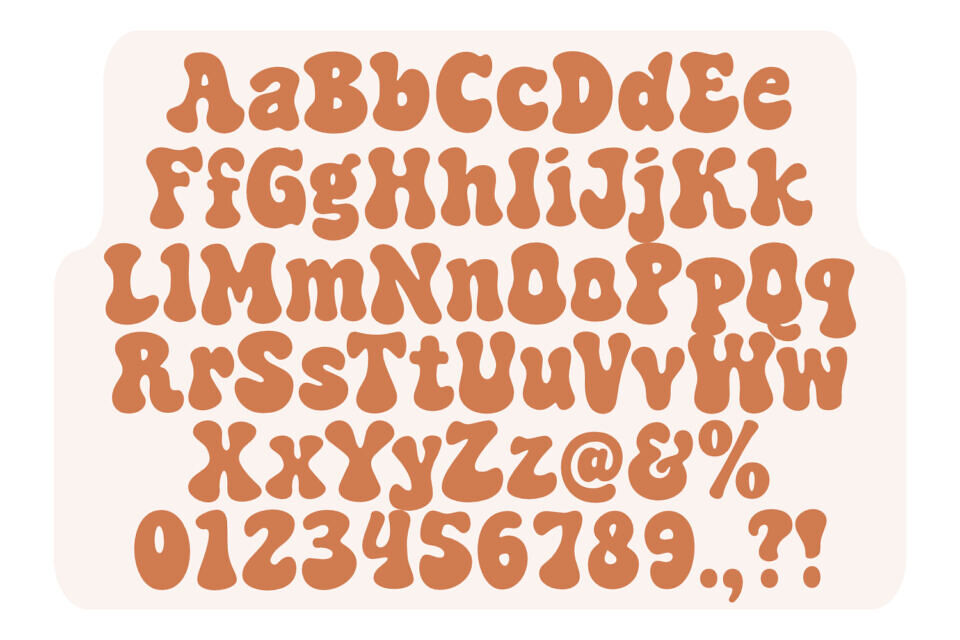
Introducing Super Maples, a delightfully groovy and bold font with a distinct retro charm. Inspired by 70s aesthetics, this typeface features chunky, rounded, and bubbly letterforms that create a playful and friendly vibe.
Its soft, almost liquid-like quality makes it perfect for eye-catching headlines, nostalgic branding, posters, and fun social media graphics. Super Maples adds a touch of warm, vintage fun to any creative project, capturing a sense of whimsical nostalgia with its unique and funky character set.